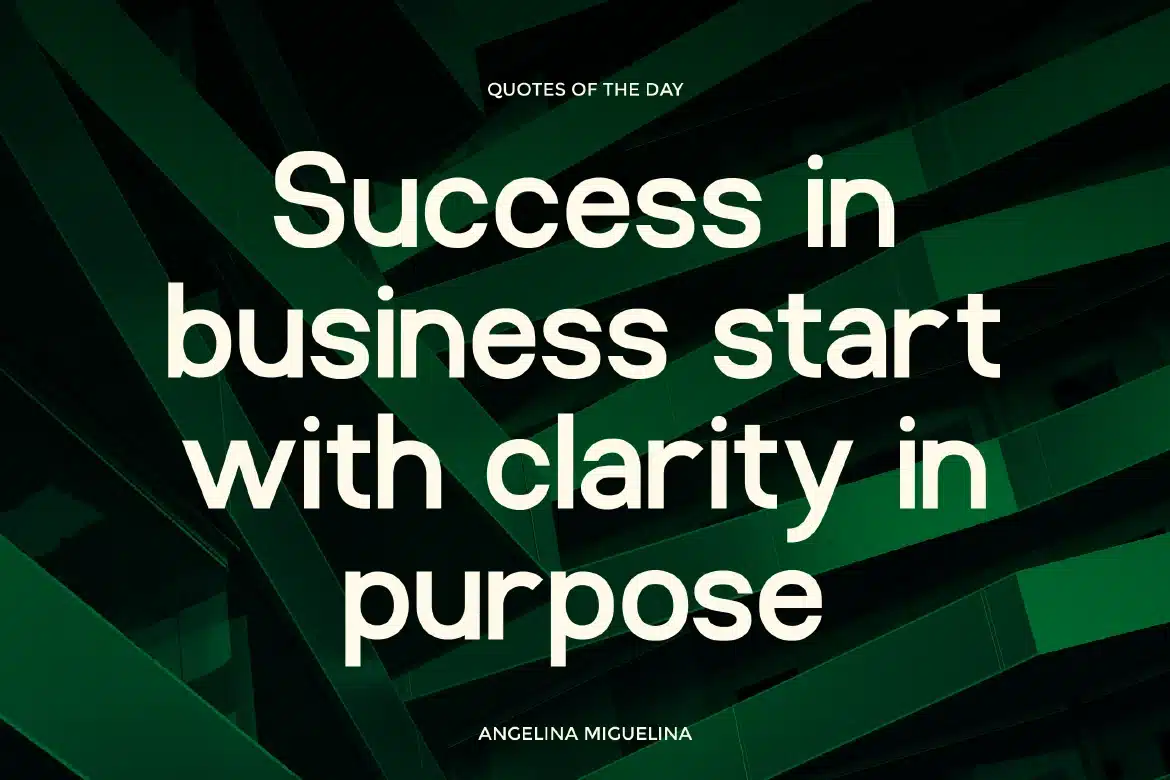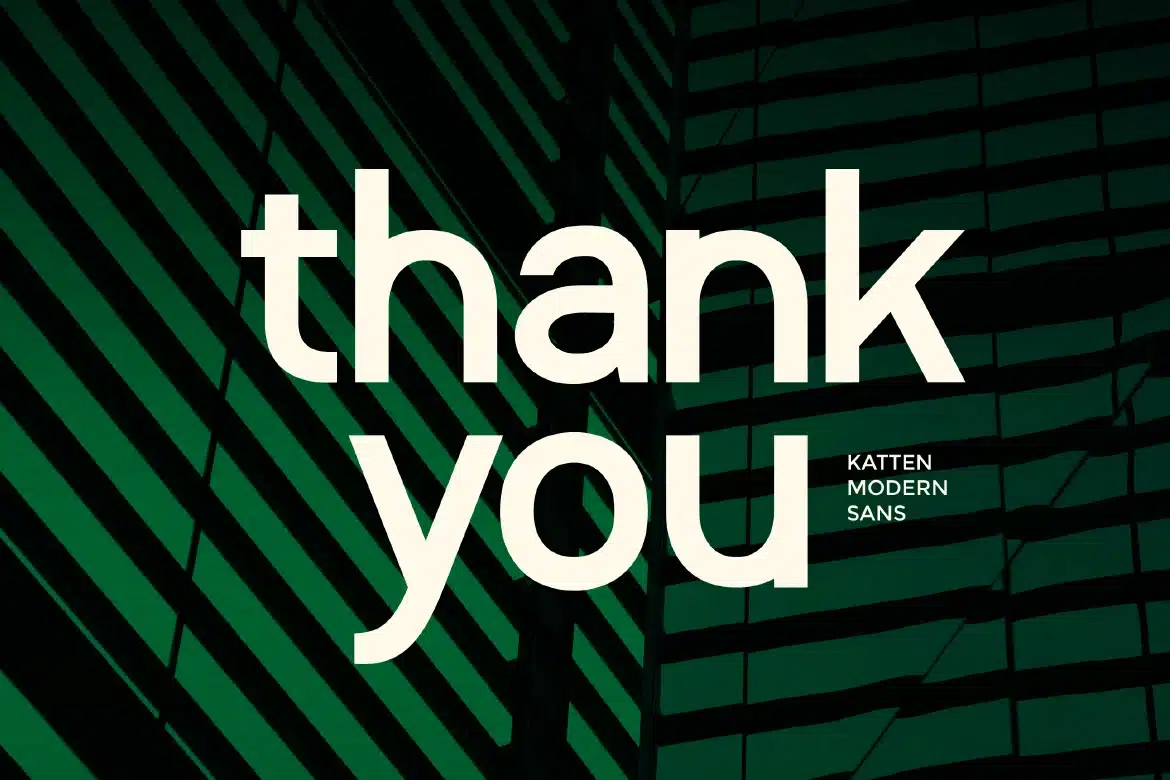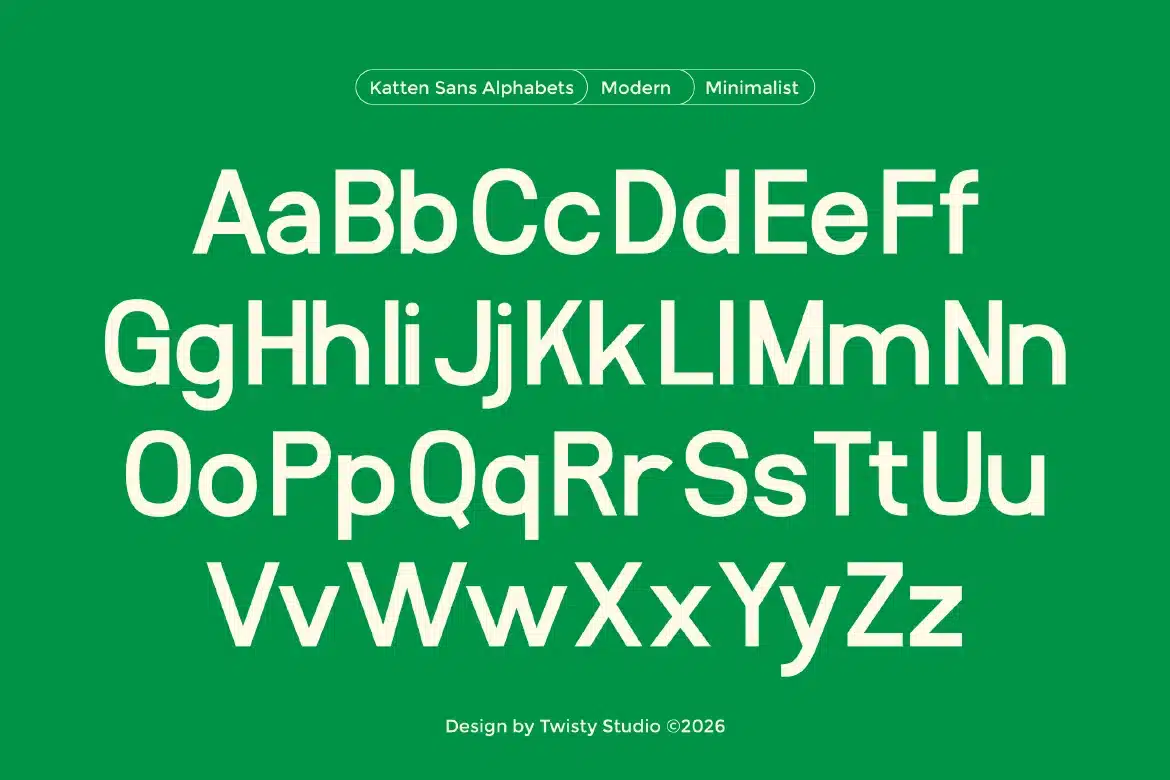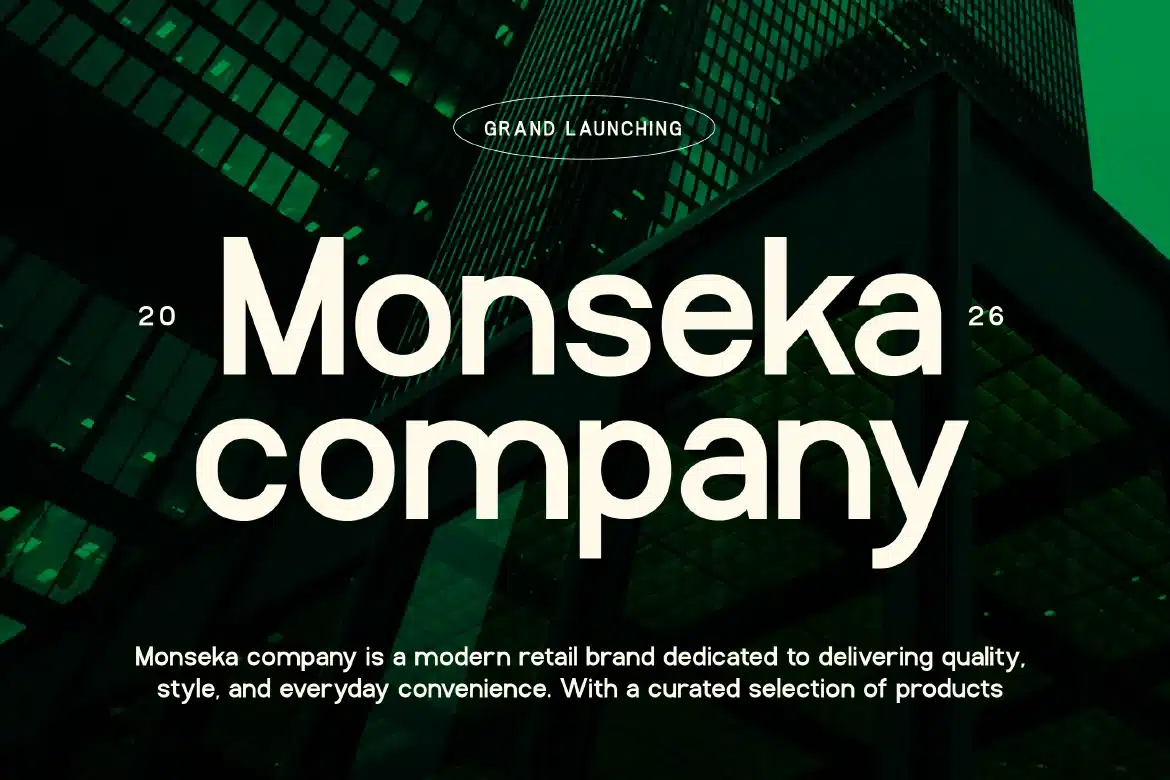
Clean Minimalist Sans Serif Font – Katten
Clean Minimalist Sans Serif Font - Katten
Katten is a clean minimalist sans serif font designed to deliver clarity, simplicity, and modern elegance. With its smooth lines, balanced proportions, and refined structure, Katten creates a calm and professional visual appearance that feels both contemporary and timeless. Focused on minimalism, Katten removes unnecessary details to highlight pure form and readability. This makes it highly effective for both display and body text, ensuring your message is communicated clearly without distraction.
Who Should Use Katten?
Katten is ideal for designers, brands, and creatives looking for a clean and minimalist sans serif font. It’s especially suited for projects that require a modern, simple, and professional look.
Brand identity and logo design
Corporate and business visuals
Website and UI/UX design
Editorial and layout design
Packaging and product design
Social media content
Marketing and advertising materials
Clean typography projects